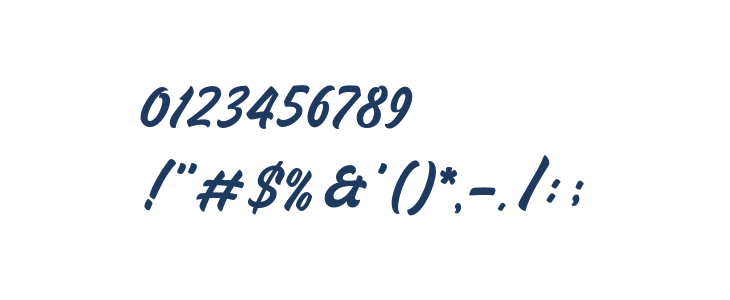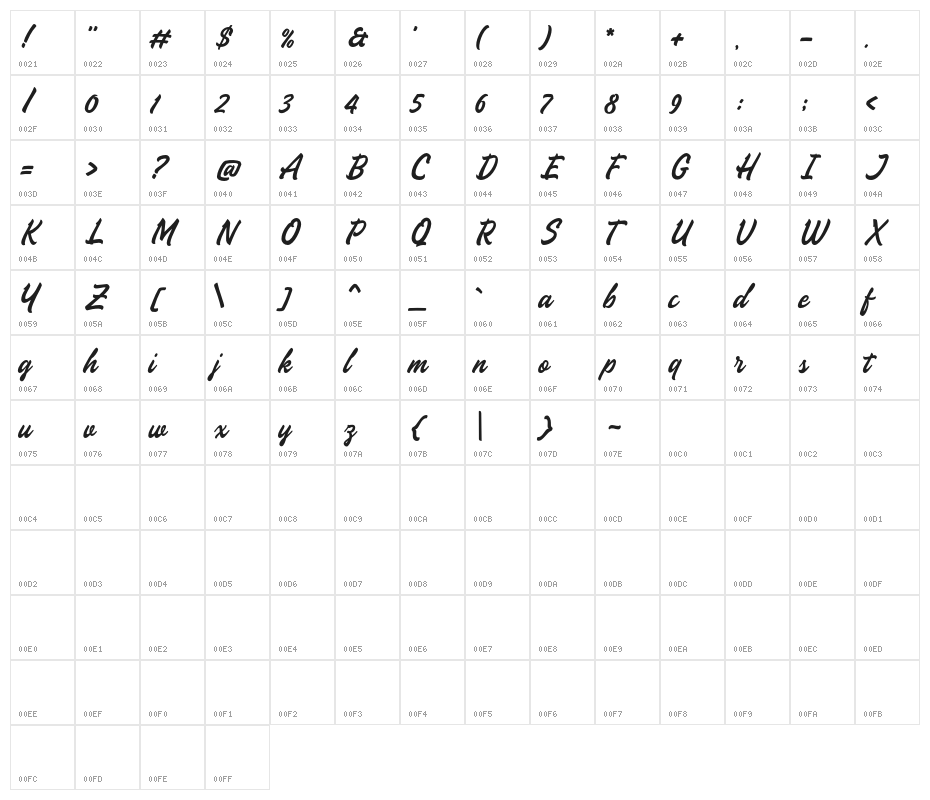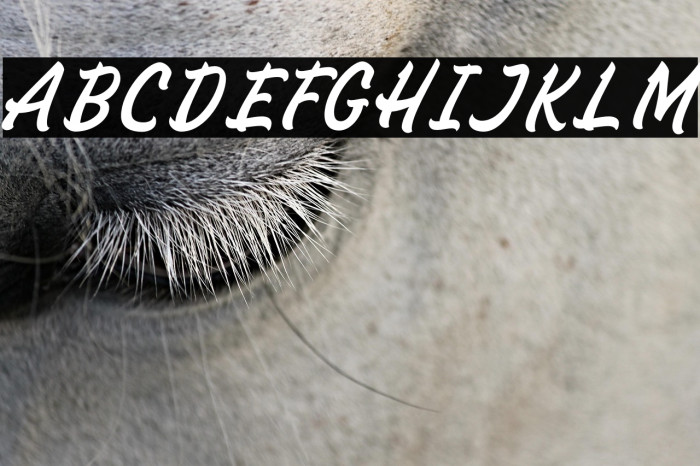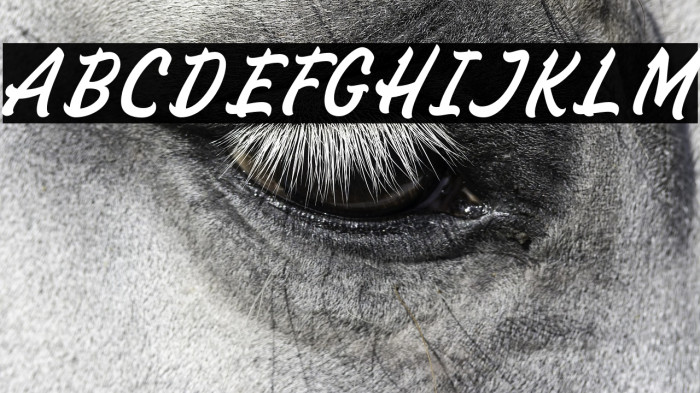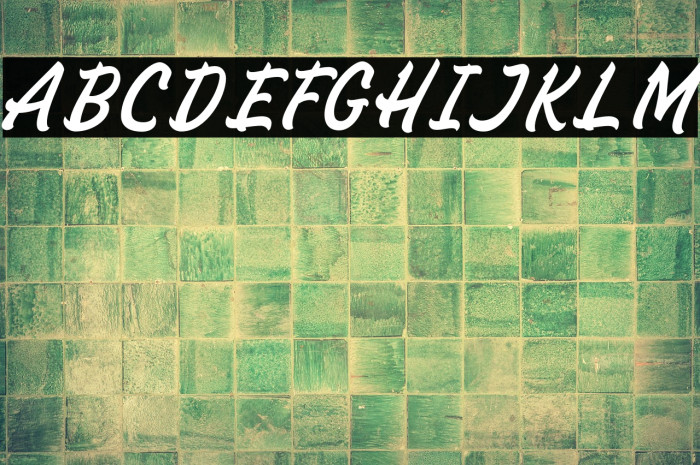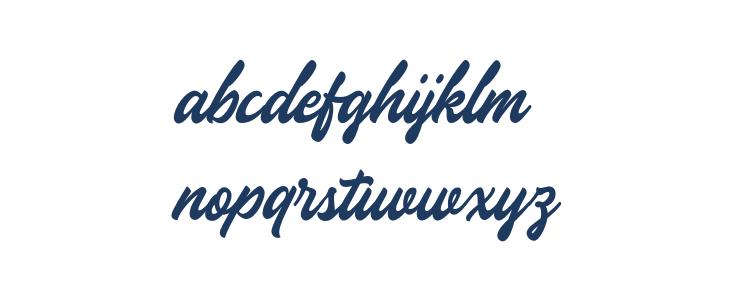
SignPaintohDemo Font
SignPaintohDemo Description
This font features a bold, cursive style with a hand-painted aesthetic, reminiscent of traditional sign painting. The letters are fluid and connected, with a slight slant that adds a dynamic and energetic feel. The uppercase letters are bold and prominent, while the lowercase letters maintain a consistent flow, enhancing readability. Numbers and special characters are crafted with the same artistic flair, ensuring a cohesive look across all text. The strokes are thick, providing a strong visual impact, making it suitable for attention-grabbing headlines or creative projects.
| Use Case | Headlines, Logos, Signage |
| Proposed Projects | Ideal for signage, branding, posters, and creative design projects that require a bold, artistic touch. |